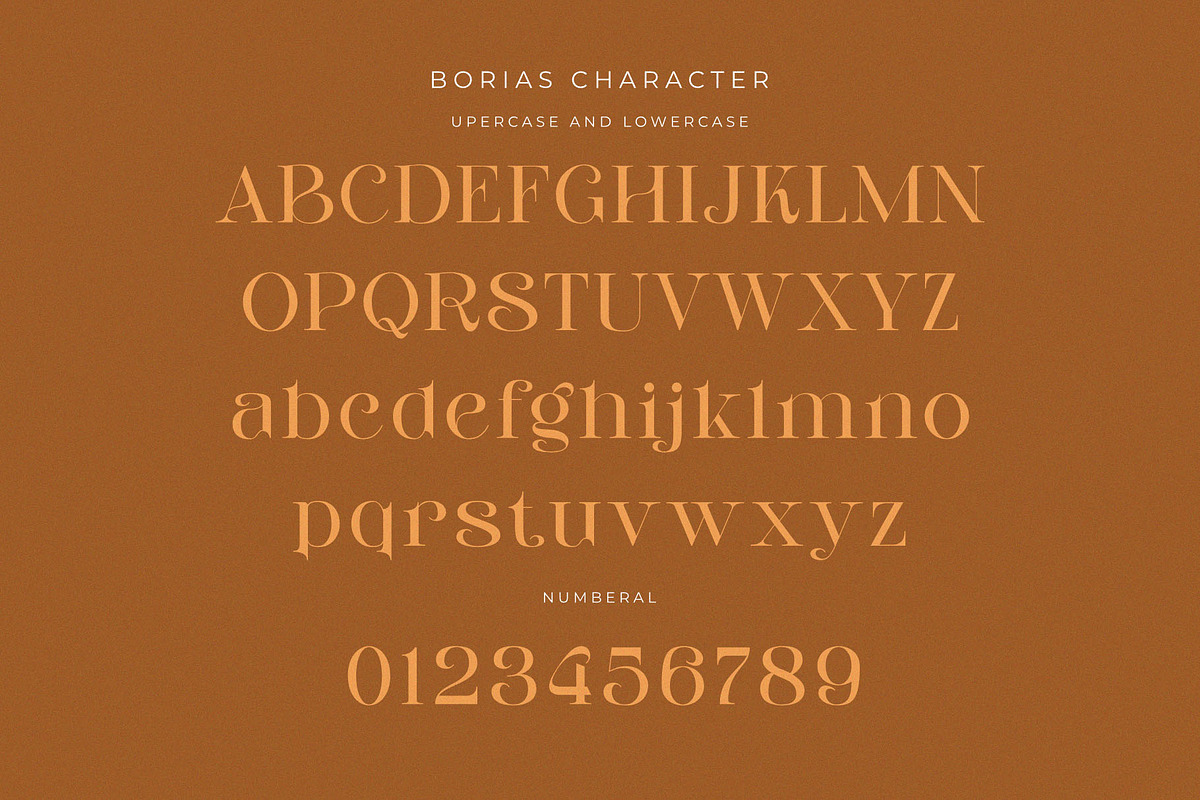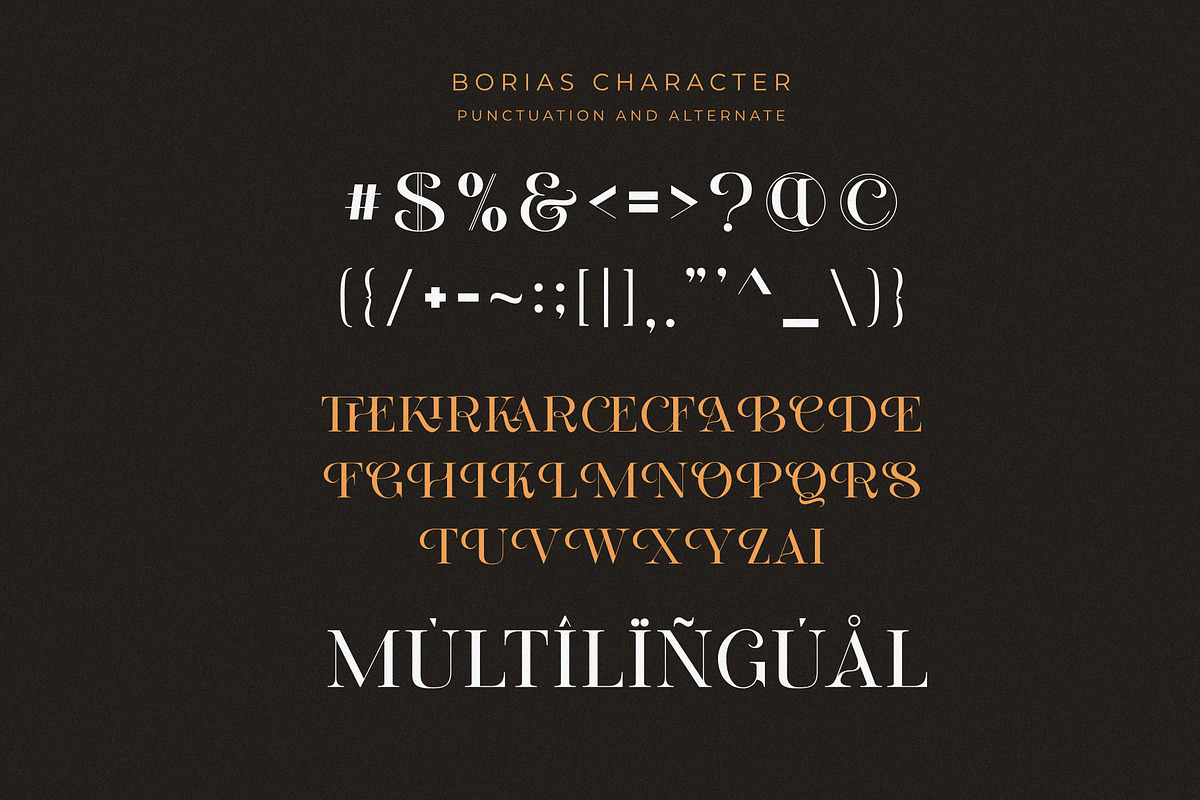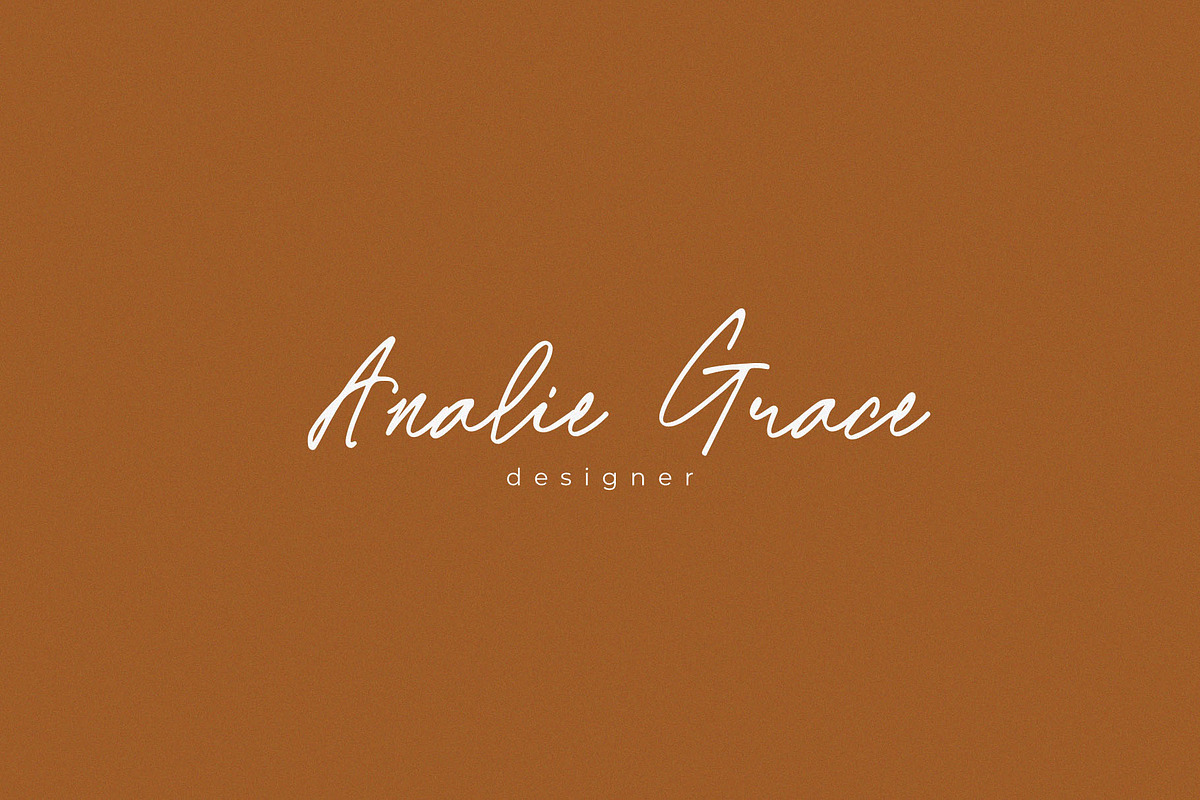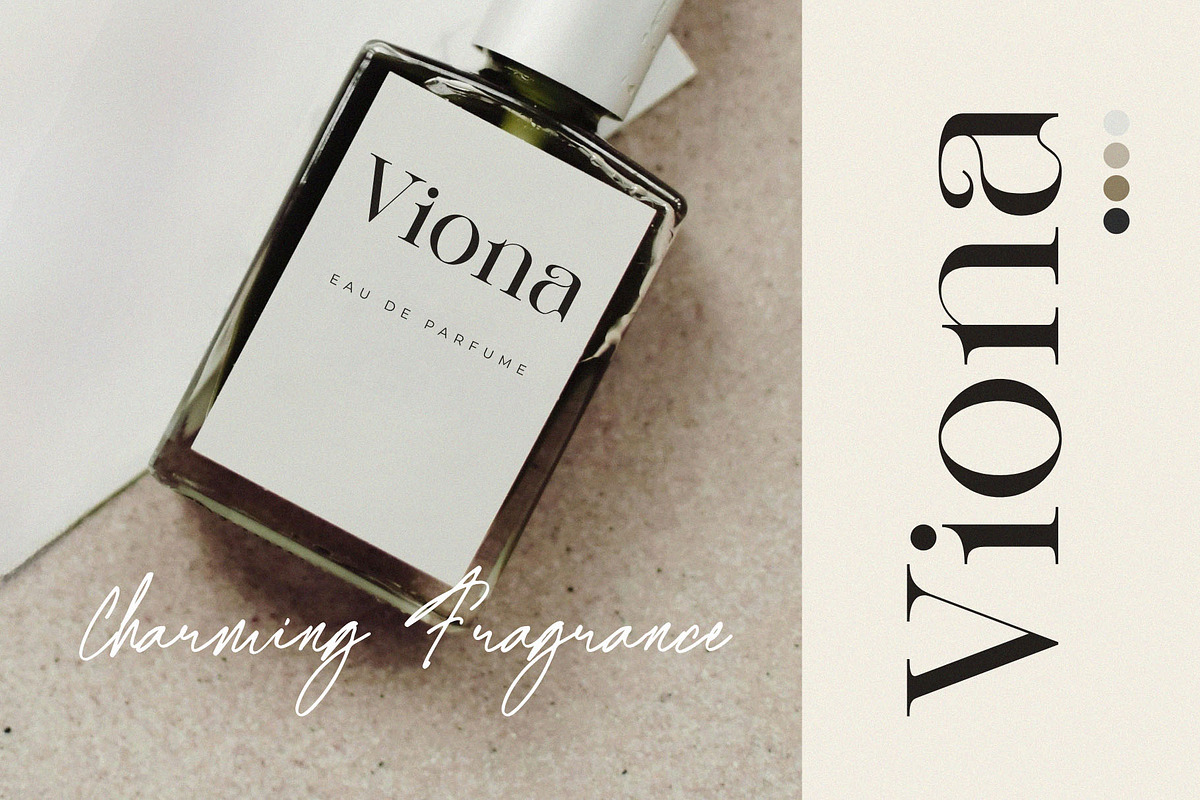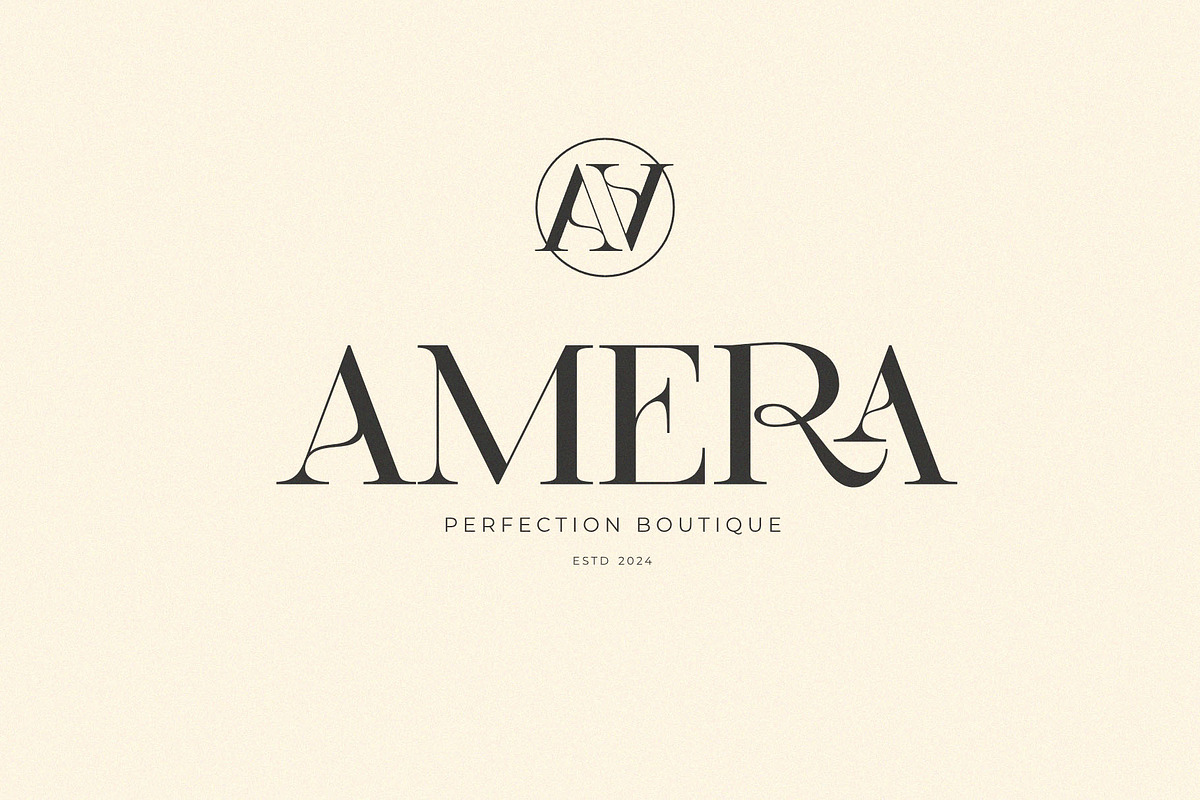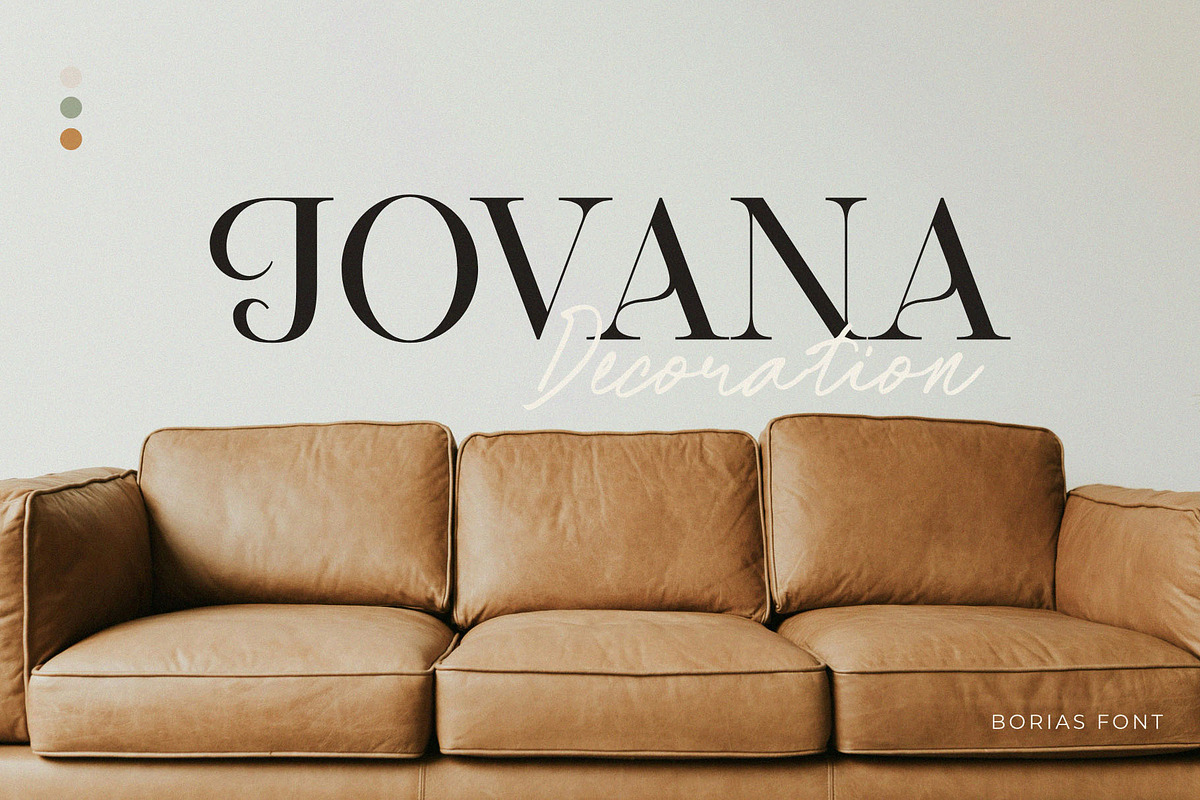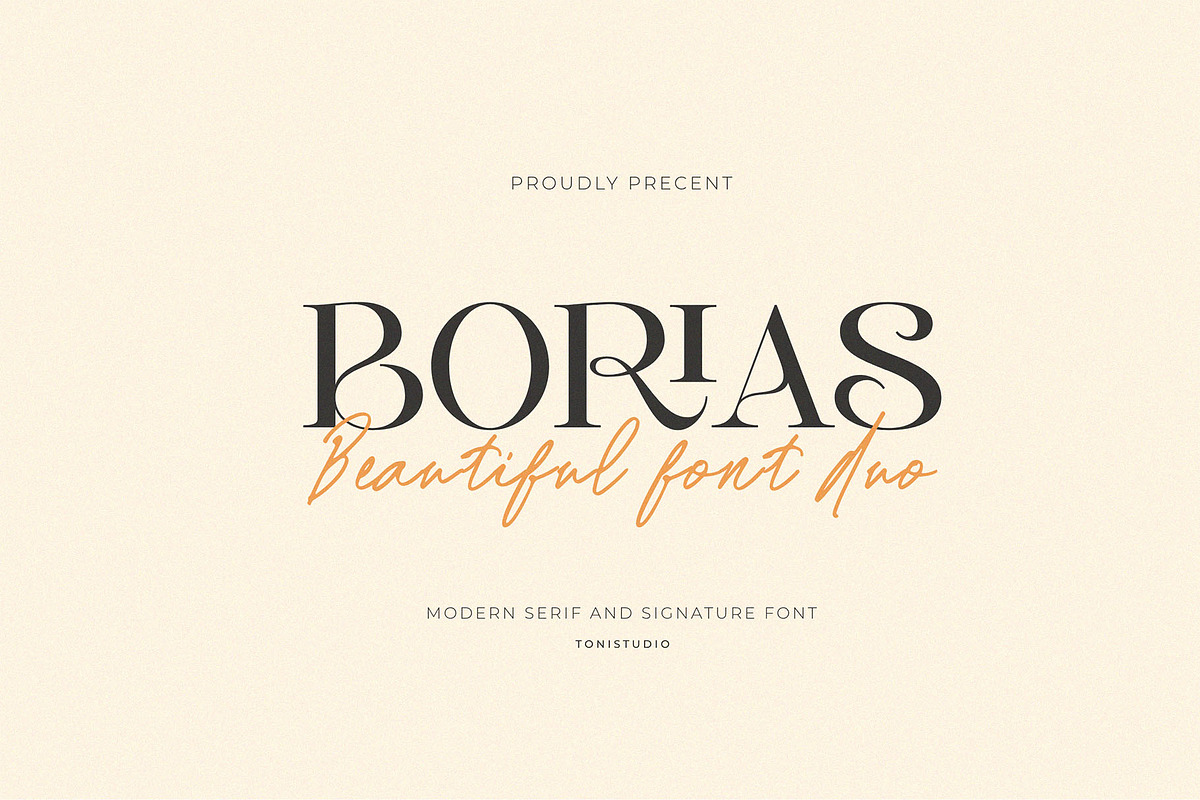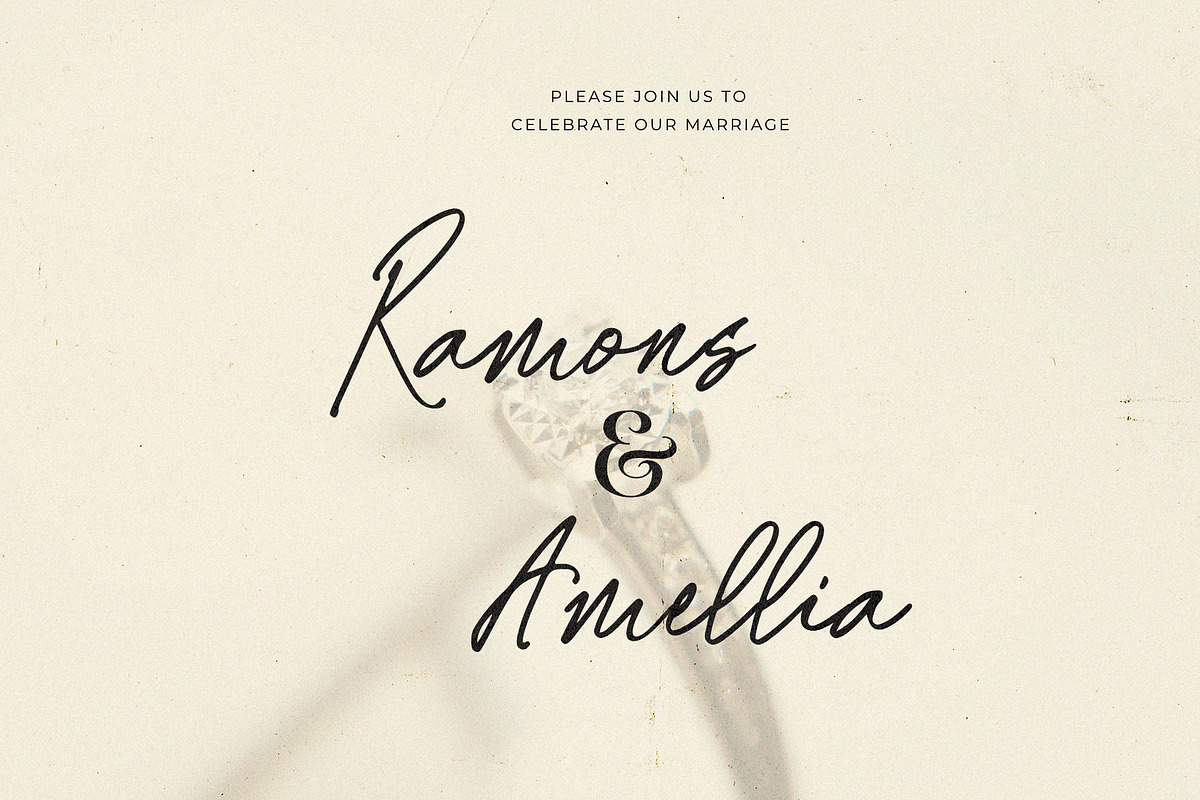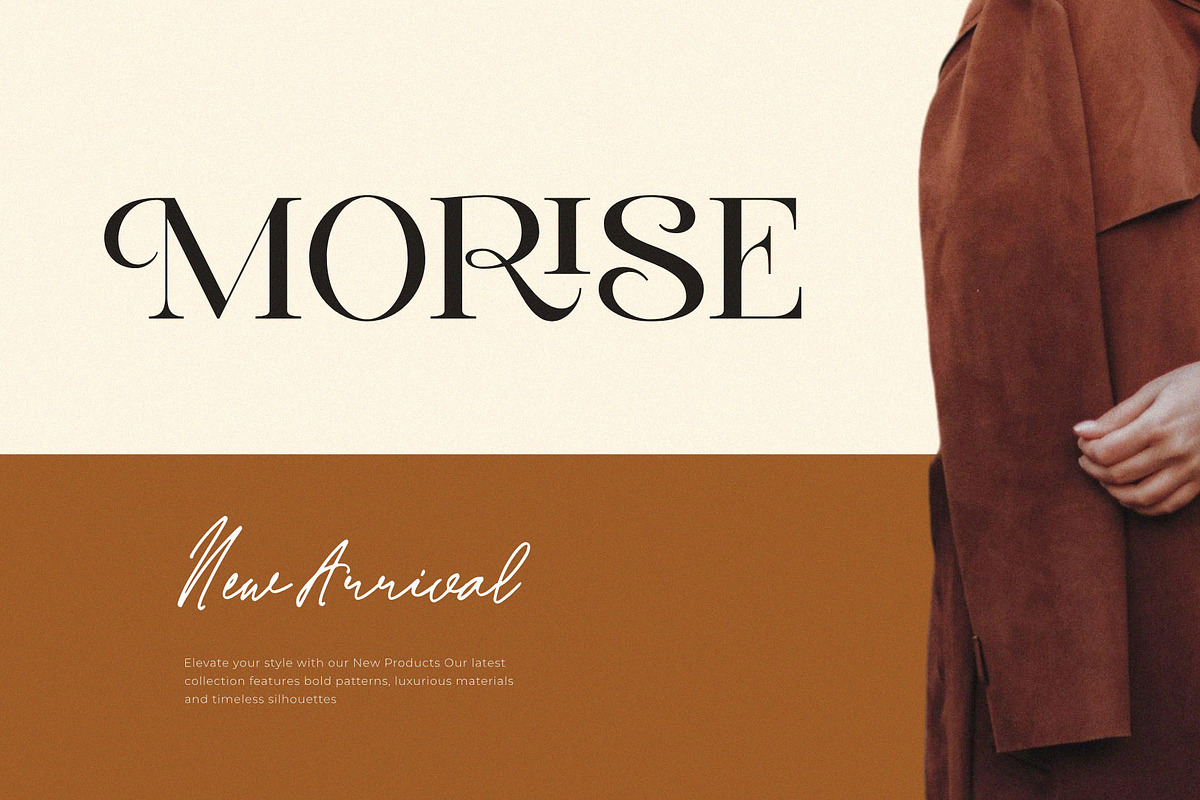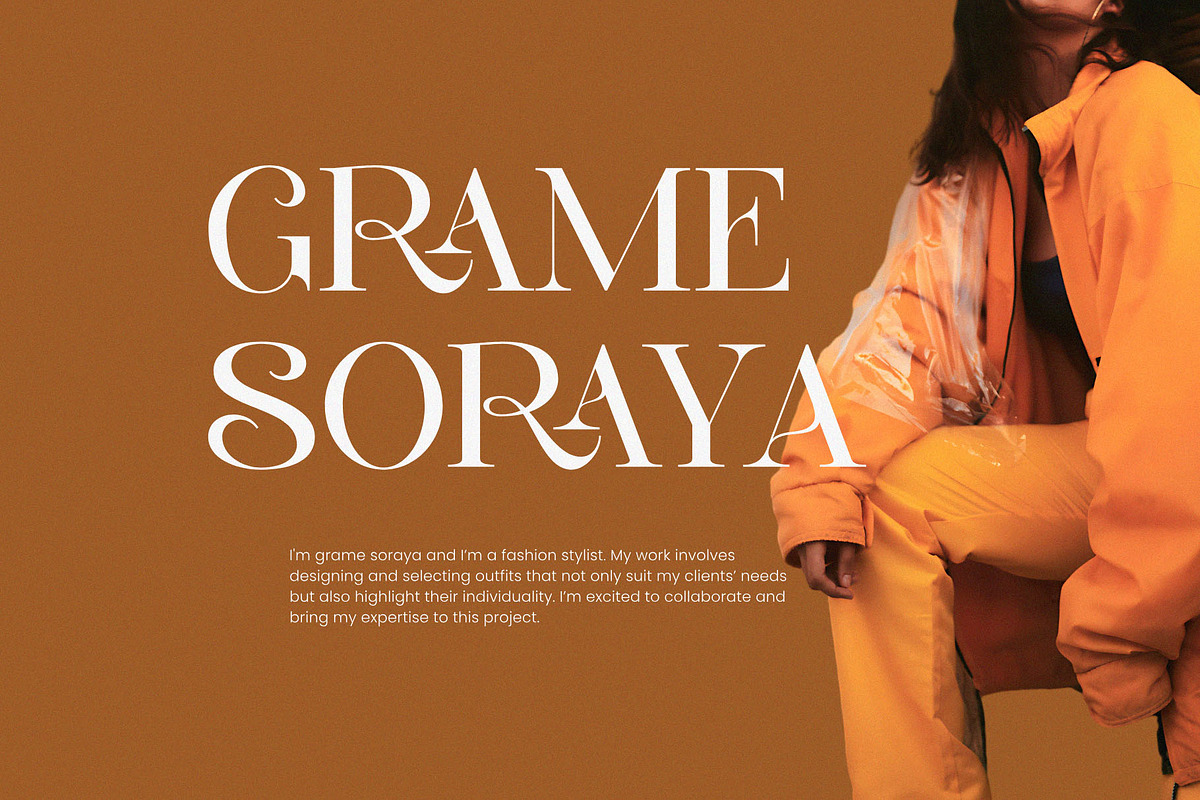
Borias || font duo
Introducing Borias Font Duo
Borias Font Duo, is the perfect blend of a smooth signature script font and an elegant modern serif font. Designed to give a luxurious and classy impression, Borias is suitable for a variety of creative projects, from branding to wedding invitation design. With a harmonious combination of styles, this font brings classic and modern beauty in one package.
Signature handwritten style script that is soft, relaxed, and full of character.
A modern serif appearance with subtle details, giving a professional and elegant impression.
Borias is suitable for branding, logos, invitation designs, social media, product packaging, and more.
Borias Font Duo is the perfect choice for creating stunning designs, from logos to editorial. Add a touch of sophistication and uniqueness to any of your projects with Borias.